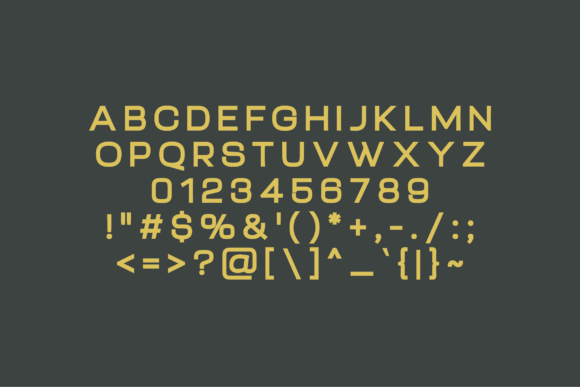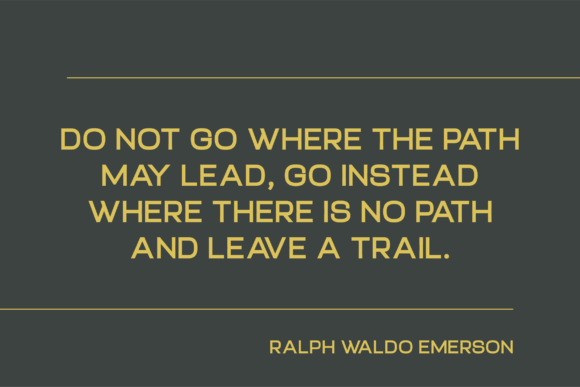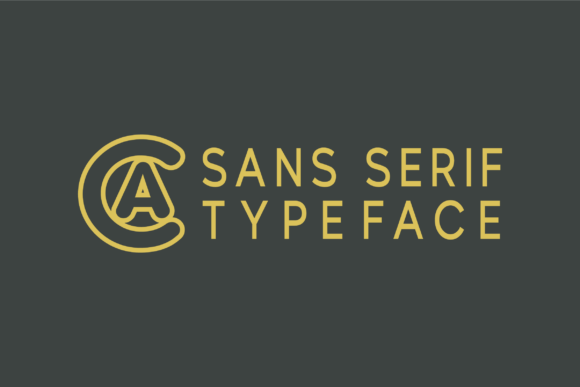
Introduction to Marcaleta Font
Have you ever been stuck in front of your design screen, staring at a blank canvas, waiting for that spark of creativity to strike? For designers, this moment is all too familiar. But what if we told you that the perfect solution lies just a click away? Enter the Marcaleta Font, a modern and classy sans serif typeface that’s about to revolutionize your design projects.
With the Marcaleta Font, you’ll have access to a wide range of characters, numbers, and symbols, making it the ultimate design resource for any creative project. Whether you’re working on a logo, wedding invitation, or magazine article, this high-quality font is sure to elevate your design to the next level. And the best part? It’s available for free download, making it a valuable addition to any designer’s toolkit.
What sets the Marcaleta Font apart is its versatility and flexibility. With a transparent background, you can easily layer it over any image or design element, creating a seamless and polished look. Whether you’re a seasoned designer or just starting out, the Marcaleta Font is an essential tool that’s sure to become a go-to favorite.
Key Features of Marcaleta Font
- Unique, modern design with a transparent background, perfect for adding a touch of elegance to any design project.
- Features a clean and minimalist aesthetic, making it suitable for a wide range of creative applications.
Honest Review: Marcaleta Font
I recently stumbled upon the Marcaleta Font, a free download that has been a game-changer for my creative projects. As a designer, I’m always on the lookout for high-quality fonts that can elevate my designs and give me the edge I need to stand out.
One of the things that works well with the Marcaleta Font is its versatility. It’s perfect for a wide range of creative projects, from logos and branding to packaging and signage. The font is also incredibly easy to use, with a transparent background that makes it easy to customize and manipulate.
Here are some of the key features that make the Marcaleta Font a top design resource:
- High-quality design that’s perfect for a variety of creative projects
- Transparent background for easy customization and manipulation
- Perfect for logos, branding, packaging, and signage
While the Marcaleta Font is an excellent resource, there are a few limitations to keep in mind: ⚠️ it’s not suitable for body text, and it may not be the best choice for complex typography projects.
Overall, I’m thoroughly impressed with the Marcaleta Font. It’s a high-quality, versatile font that’s perfect for designers who want to take their creative projects to the next level. I’d highly recommend it to anyone looking for a reliable design resource. ✨
Marcaleta Font is a high-quality font with a transparent background, making it ideal for use in creative projects such as logo design, branding, and infographics. It’s also a great option for use in presentations, reports, and documents where a modern and stylish font is desired.
Tips for Getting the Most Out of Marcaleta Font
To get the most out of Marcaleta Font, experiment with different font sizes, colors, and combinations to find the perfect look for your design. You can also use the font in conjunction with other design elements, such as graphics and images, to create a visually appealing and cohesive design.
Is the Marcaleta Font suitable for use on a transparent background?
Yes, the Marcaleta Font has a transparent background, making it ideal for use on dark or textured backgrounds. The font’s design is also optimized for use on high-resolution displays, ensuring that the text remains clear and legible.